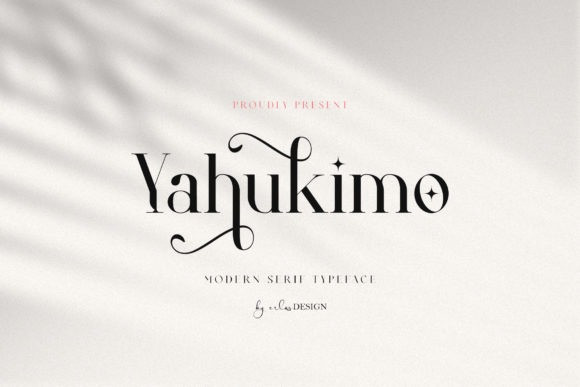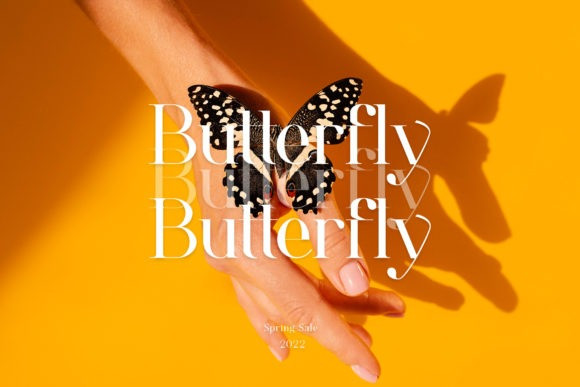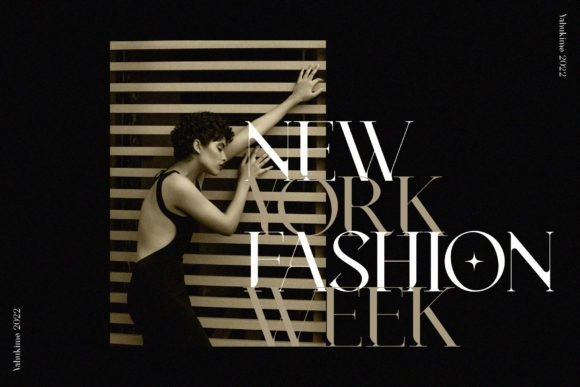
Yahukimo Font
Yahukimo is a display serif font with modern style. It includes uppercase and lowercase letters, alternate of uppercase, alternate of lowercase, numeral, ligatures, a large range of punctuation and also multilingual support. Perfects for poster, web design, magazine cover, album cover , branding and many more.